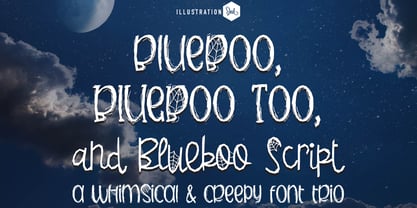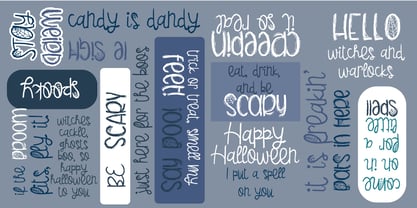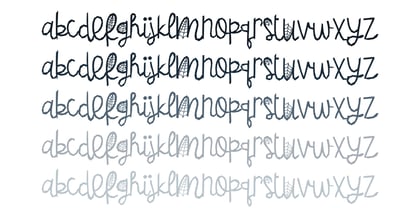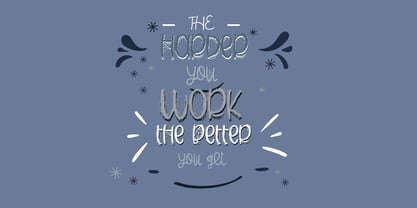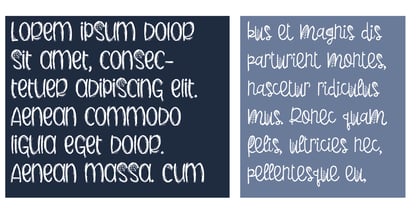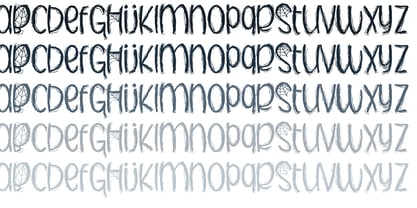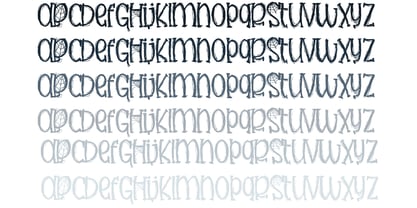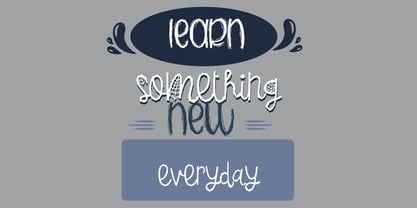
PN Blueboo
by Illustration Ink
The PN Blueboo Font Family was designed by Illustration Ink and published by Illustration Ink. PN Blueboo contains 7 styles and family package options. More about this family
This hand-crafted font is a cute, hand-crafted, grungy font with some amount of webbing, a coordinated script and a serif version too. Hand-crafted fonts can be either formal or informal, and they can be used for a variety of purposes. Some of the characteristics of handwritten fonts include: The letters are not perfectly uniform in size or shape. There may be slight variations in the spacing between letters and words. The font may have a "wiggly" or "squiggly" appearance. The font may be difficult to read at small sizes. Handwritten fonts can be a great way to add a casual touch to your designs. They can also be used to create a sense of nostalgia or whimsy. However, it is important to choose a handwritten font that is appropriate for the project you are working on. A formal handwritten font may not be appropriate for a casual invitation, while an informal handwritten font may not be appropriate for a corporate document.
PN Blueboo